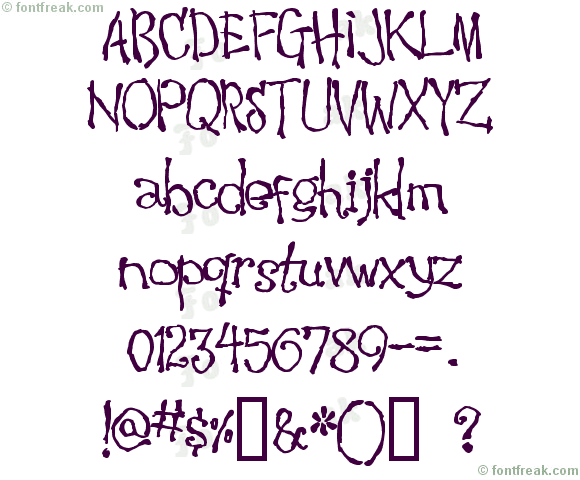
Waking the Witch
About Waking The Witch
Waking The Witch by Pizzadude is a captivating display font that captures the essence of whimsy and enchantment. This decorative typeface features a unique blend of playful curves and sharp angles, creating an eye-catching visual aesthetic that is both intriguing and memorable. The stroke weight varies throughout the letters, adding a dynamic quality while maintaining a harmonious balance. The font exhibits moderate contrast, with thicker areas that enhance its artistic flair. The generous spacing between characters allows for clarity and readability, making it suitable for a variety of applications.
This font shines in creative contexts where imagination and a touch of the mystical are required. It is perfect for designing movie posters that evoke a sense of fantasy or intrigue, such as horror or supernatural genres. Waking The Witch also works wonderfully for Halloween-themed events, making it an excellent choice for party invitations or promotional materials. Moreover, it can add a distinctive flair to product labels in artisanal shops or craft markets, appealing to those who appreciate unique and handmade items. Graphic designers, content creators, and small business owners will find this font particularly appealing as it empowers them to convey a sense of creativity and originality in their work.
What sets the Waking The Witch font apart is its ability to evoke emotion and curiosity. Whether you're crafting a captivating visual for a storytelling project or designing a fun and quirky brand identity, this font's enchanting style will resonate with your audience. The Waking The Witch font free download offers a fantastic opportunity for creatives to enhance their projects with a touch of magic, ensuring that any design stands out in a crowded market.